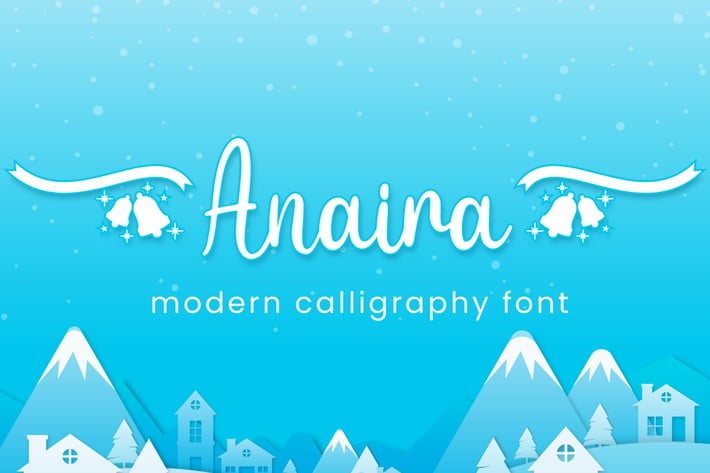
Anaira - Christmas Font
Anaira is a delicate and incredibly distinct handwritten font with dingbats character of bells & ribbon. Perfect for christmas promotion and christmas design, Fall in love with its incredibly versatile style and use it to create spectacular designs!
Anaira is perfect for branding, logo, invitation, stationery, social media post, product packaging, merchandise, christmas font, blog design, game titles, cute style design, Book/Cover Title and more.
- Beginning & Ending Dingbats